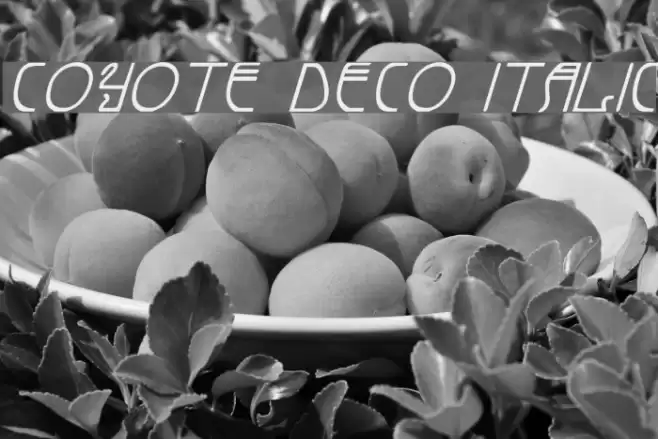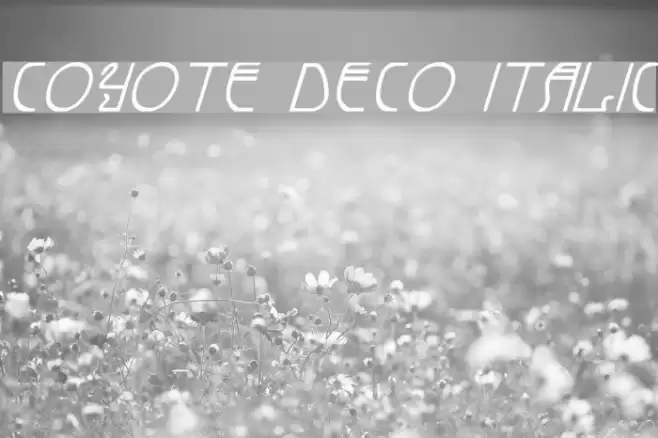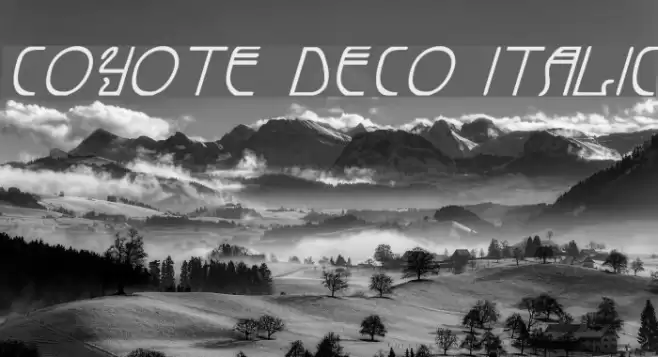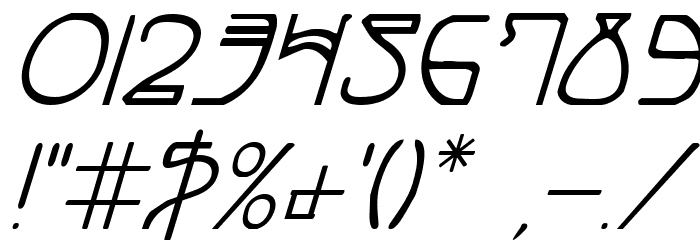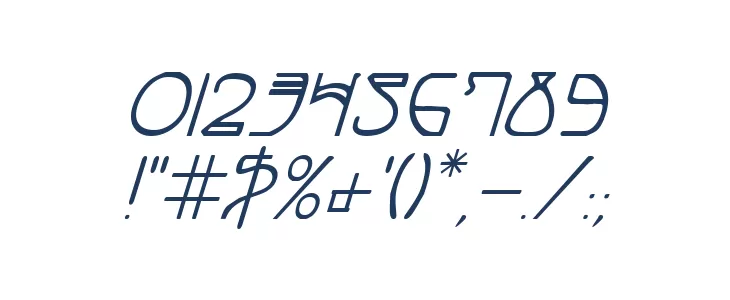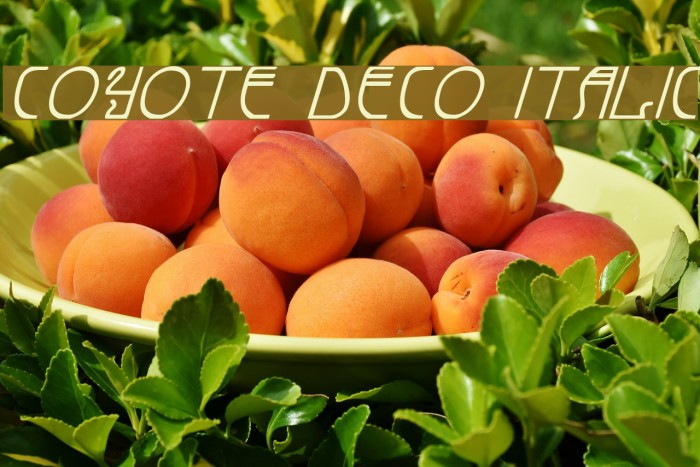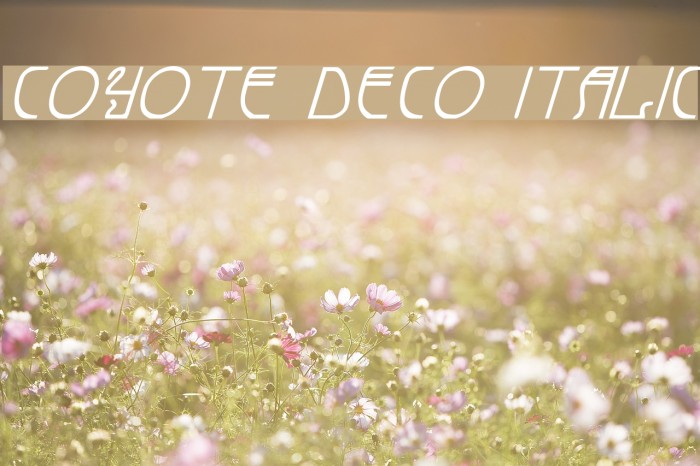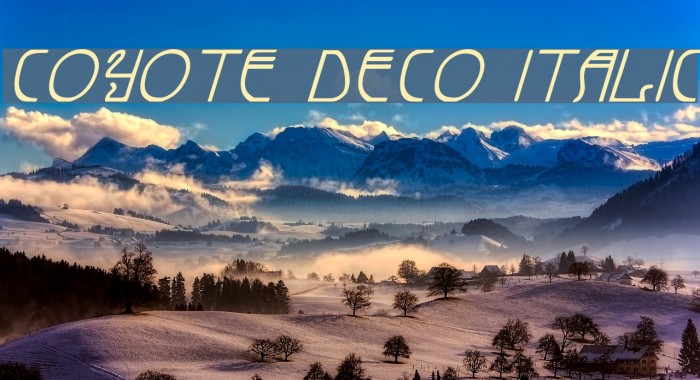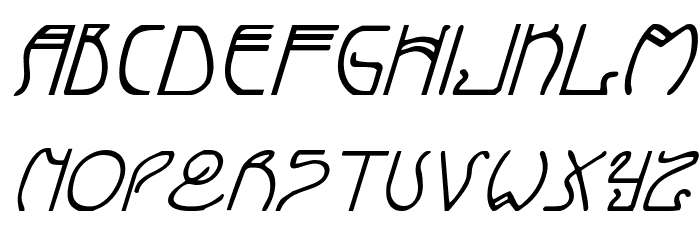
Coyote Deco Italic Font
Coyote Deco Italic Description
This font features a unique blend of Art Deco influences with a modern twist. The characters are italicized, giving them a dynamic and forward-leaning appearance. The strokes are clean and geometric, with a consistent thickness throughout, which adds to its sleek and stylish look. The uppercase letters have a distinct angular design, while the lowercase letters maintain a similar style, ensuring uniformity across the typeface. Numbers and special characters are crafted with the same attention to detail, making this font versatile for various applications. Its decorative nature makes it stand out, yet it remains legible and functional.
A modern, italicized Art Deco-inspired font with geometric and angular characters from Retro fonts.
- Proposed Projects: Ideal for branding, posters, and editorial design where a stylish and distinctive look is desired.